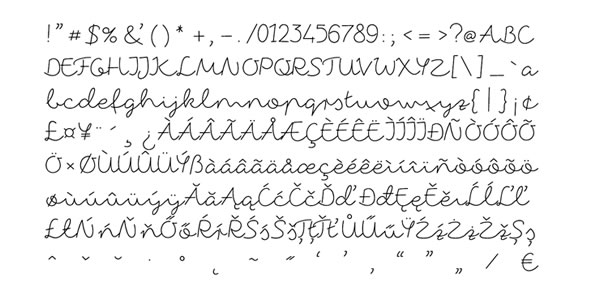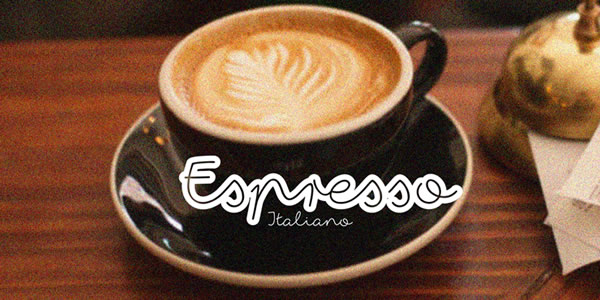
Introduction to Fox in the Snow Font
About the Fox in the Snow font Fox in the Snow is a cursive handwritten font created by type designer Roland Hüse.
Key Features of Fox in the Snow Font